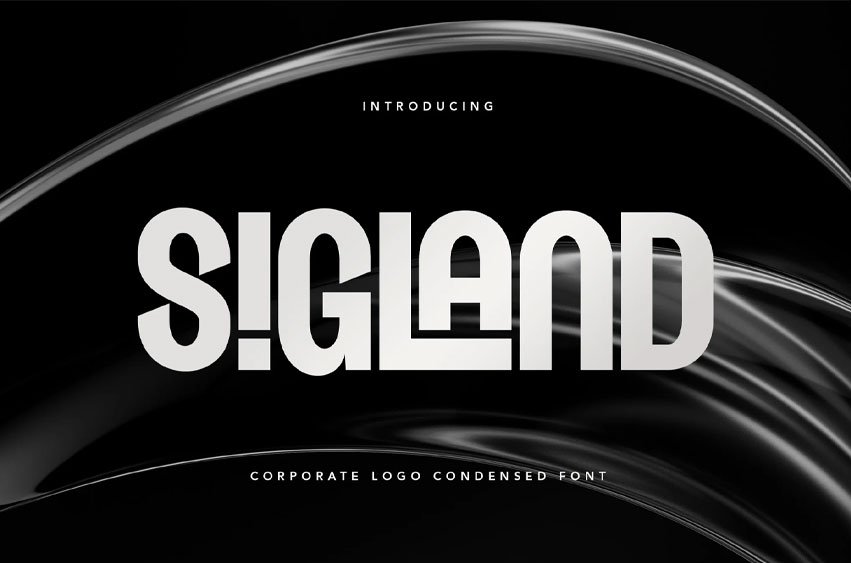
Sigland Font is a sleek, condensed sans-serif font designed for impactful, space-efficient branding. With tall letterforms and tight spacing, it delivers a clean and professional aesthetic—ideal for businesses looking to communicate with confidence and style. Perfect for logos, headlines, editorial layouts, signage, and other branding needs where clarity meets elegance.
Font Features:
- Uppercase & lowercase
- Numerals & basic punctuation
- Alternates & ligatures
Ideal For:
Corporate branding, business cards, editorial titles, startup identity, posters, packaging, signage, tech & digital agencies, clean UI/UX projects.